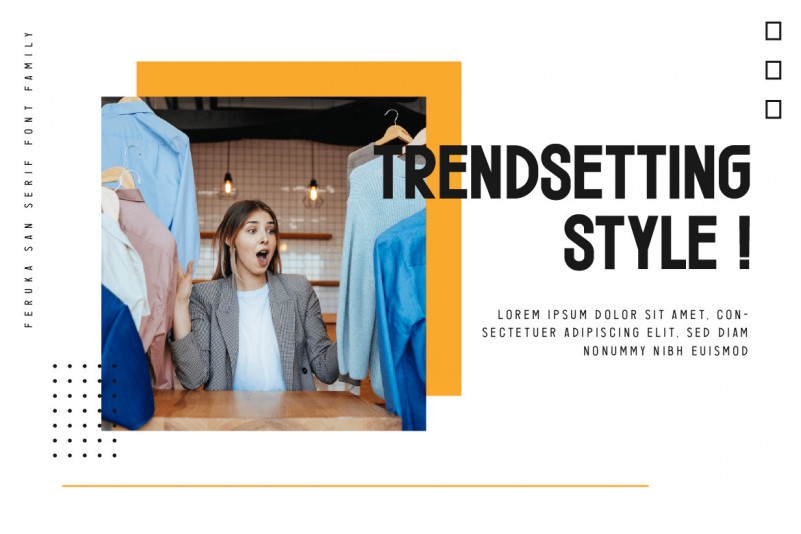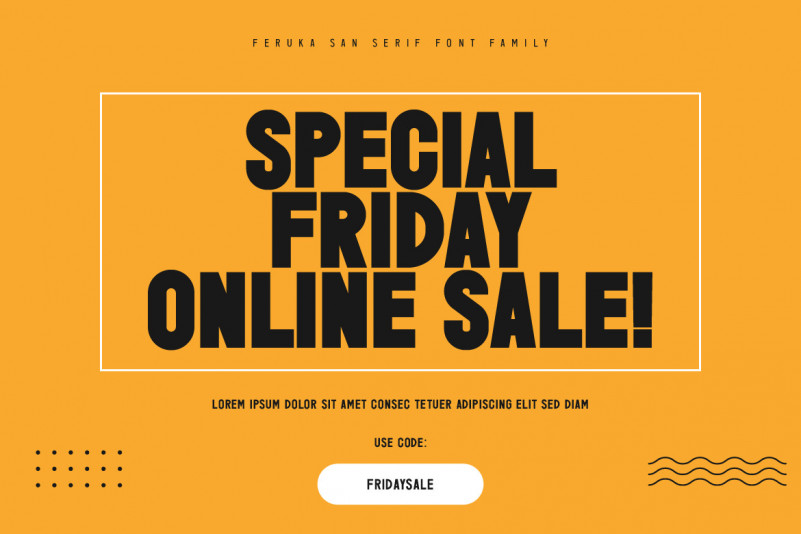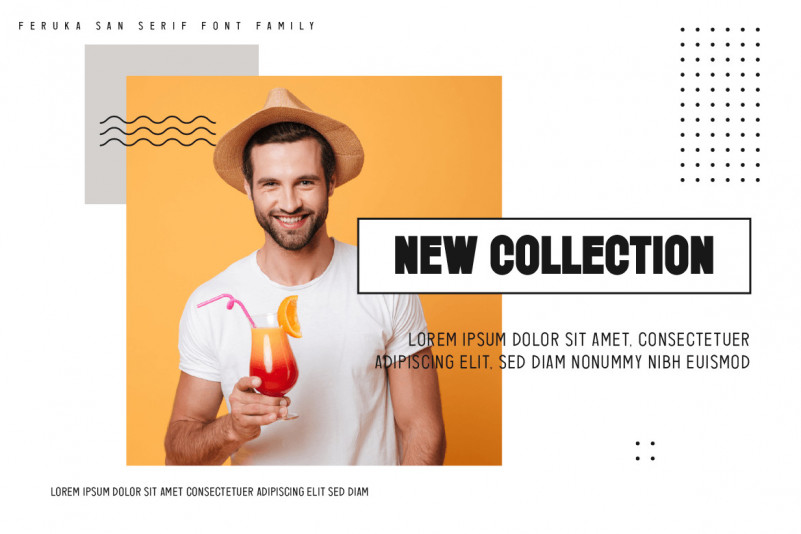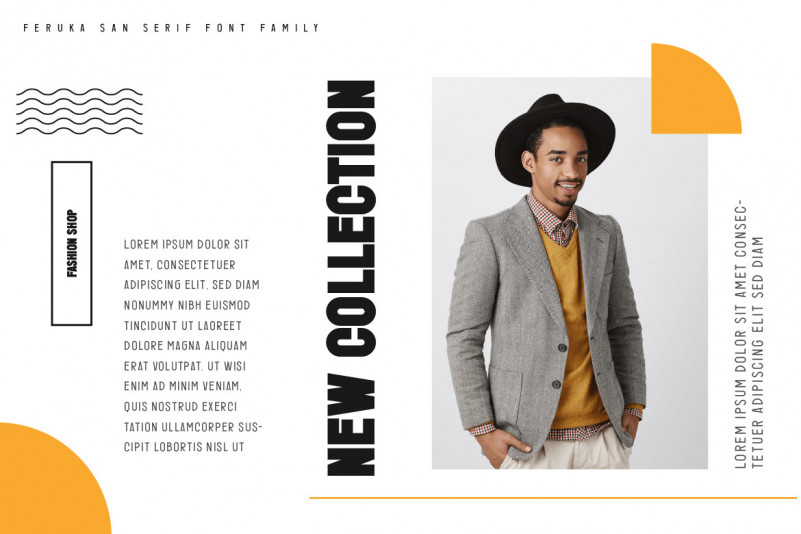
Feruka Font
Feruka Sans Serif Font
This font is charming and valiant in its application, a font with a bold style and strong character that makes your design look bold and bold to convey messages to consumers in every design, this font is equipped with regular and bold thin variations to simplify and meet project needs you.
Feruka Sans Serif Font is perfect for a wide variety of design projects, sporting events, branding, banners, posters, movie titles, food and beverage, technology, quotes, clothing, logotypes, and more.
Of course, by using this font your various design projects will be perfect and amazing, because this font comes with a family of fonts, both for titles and subtitles and sentence text, start using our fonts for your amazing projects.